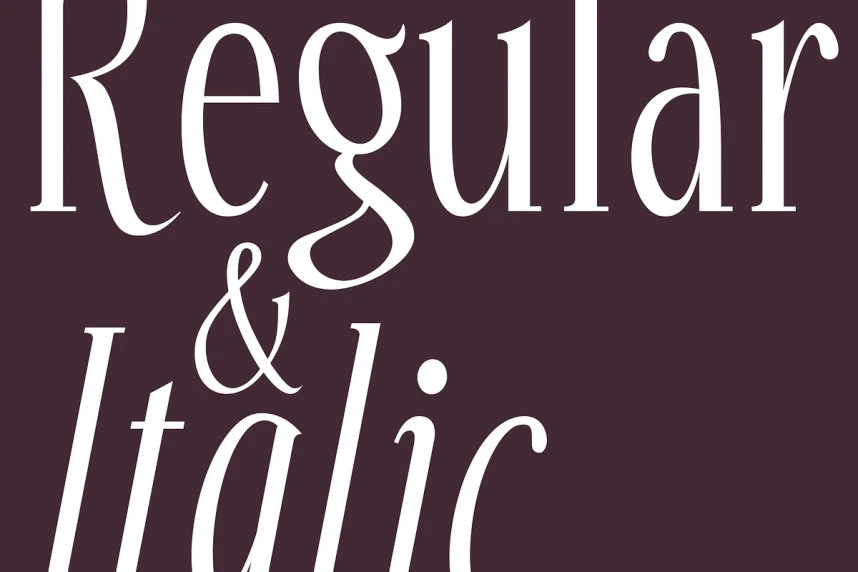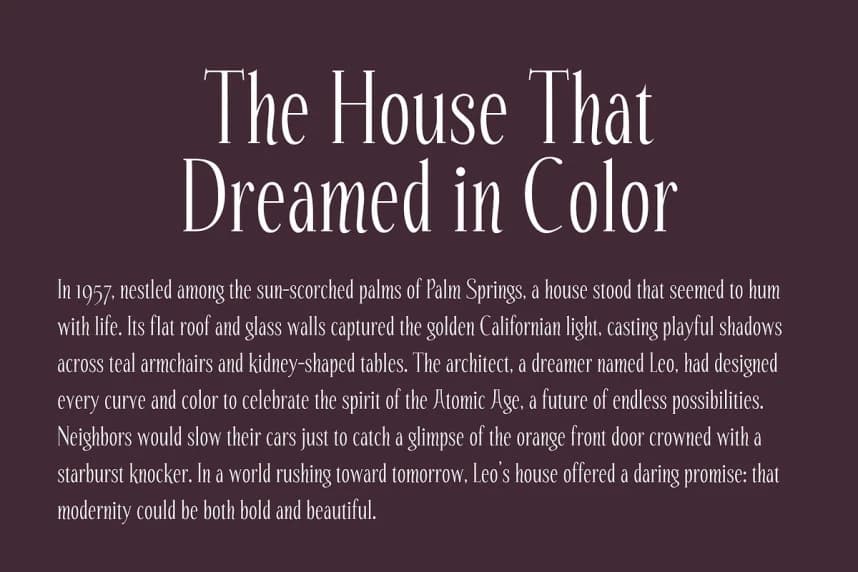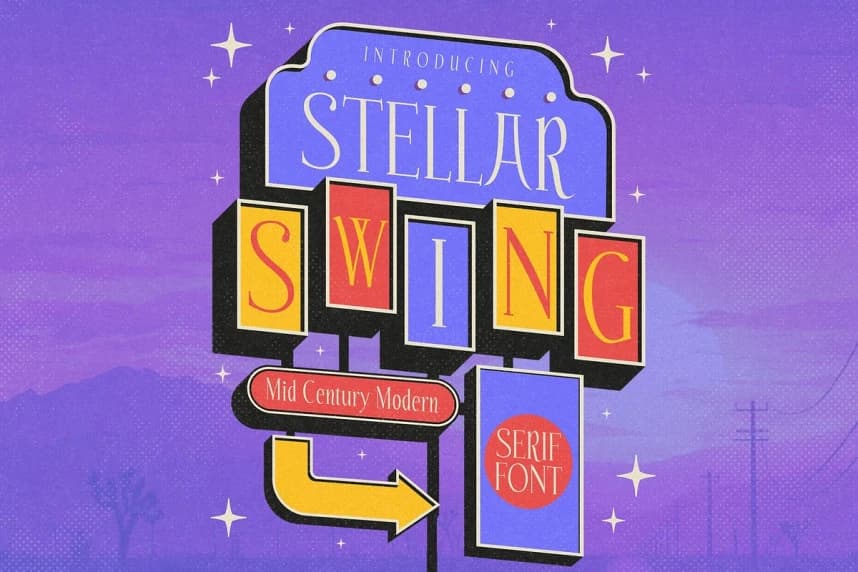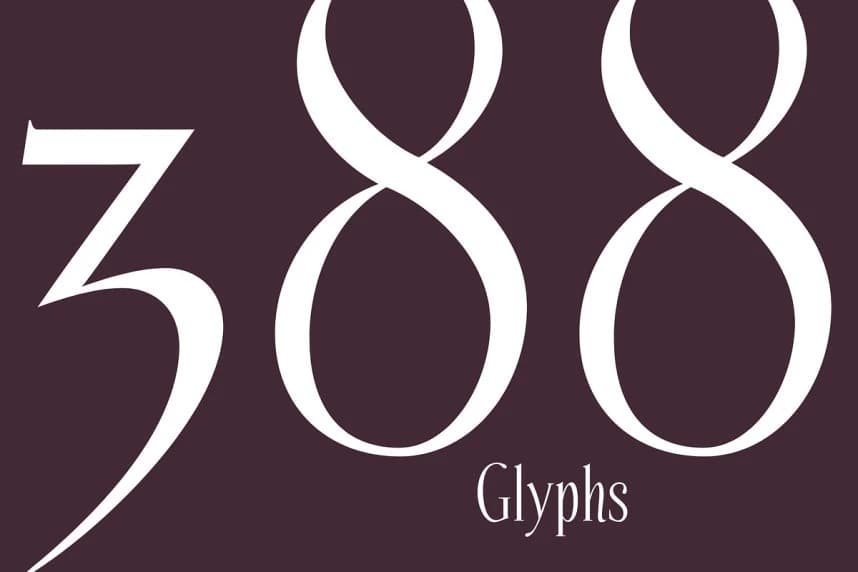
Stellar Swing Font, a classy and stylish serif typeface inspired by the glamour and geometry of the Mid-Century Modern era. With sleek curves, sharp serifs, and retro charm baked into every character, this font radiates elegance, confidence, and unmistakable vintage flair.